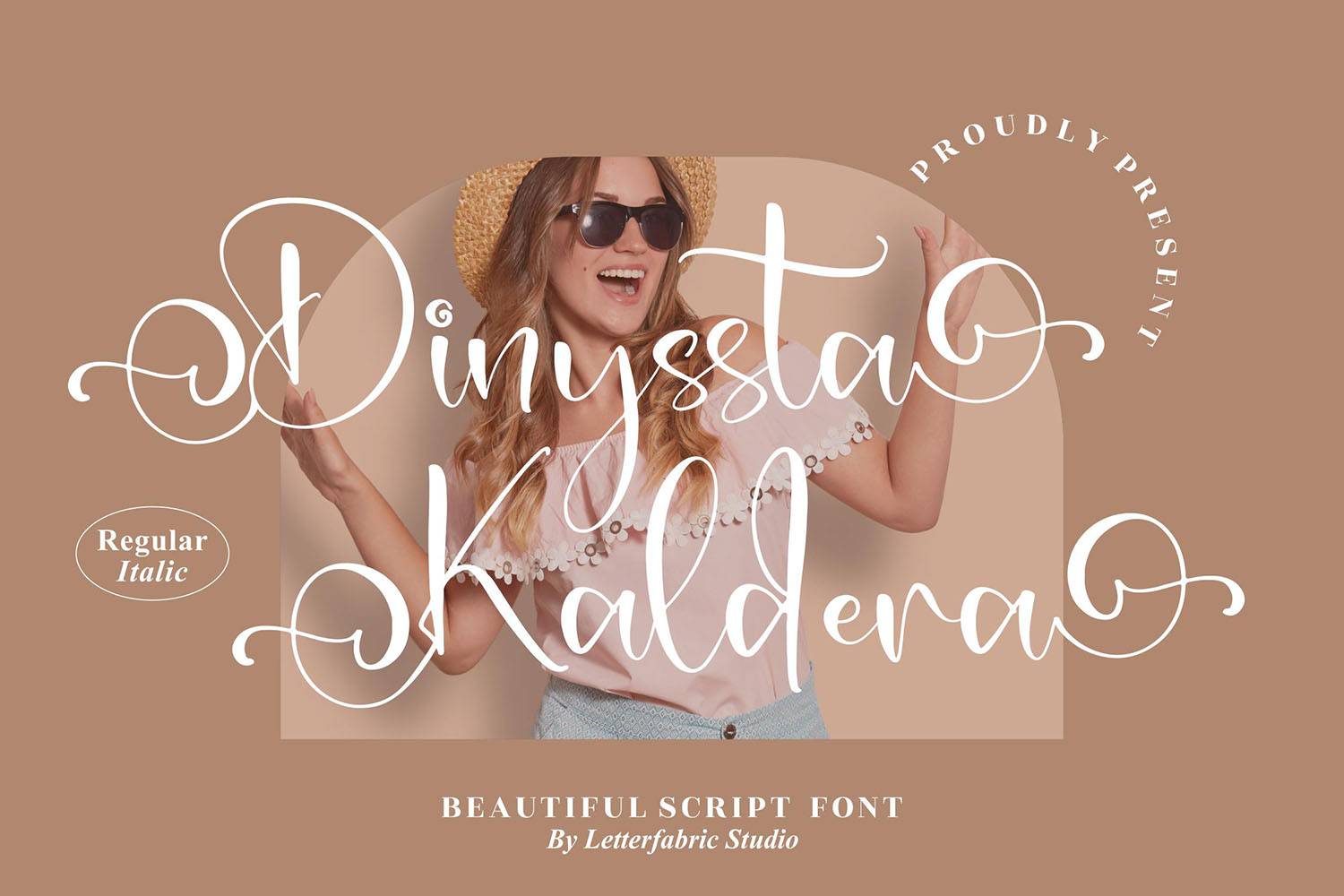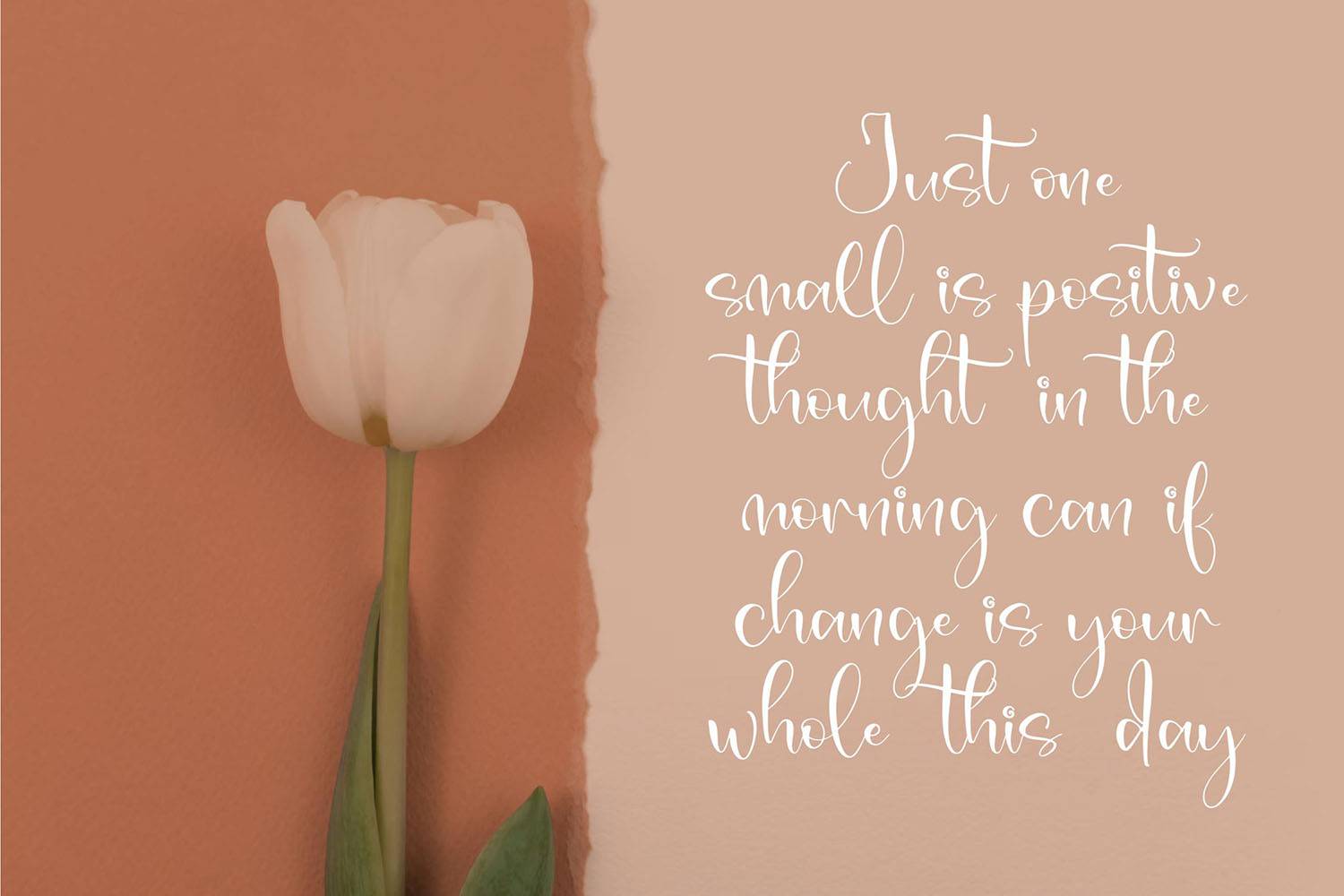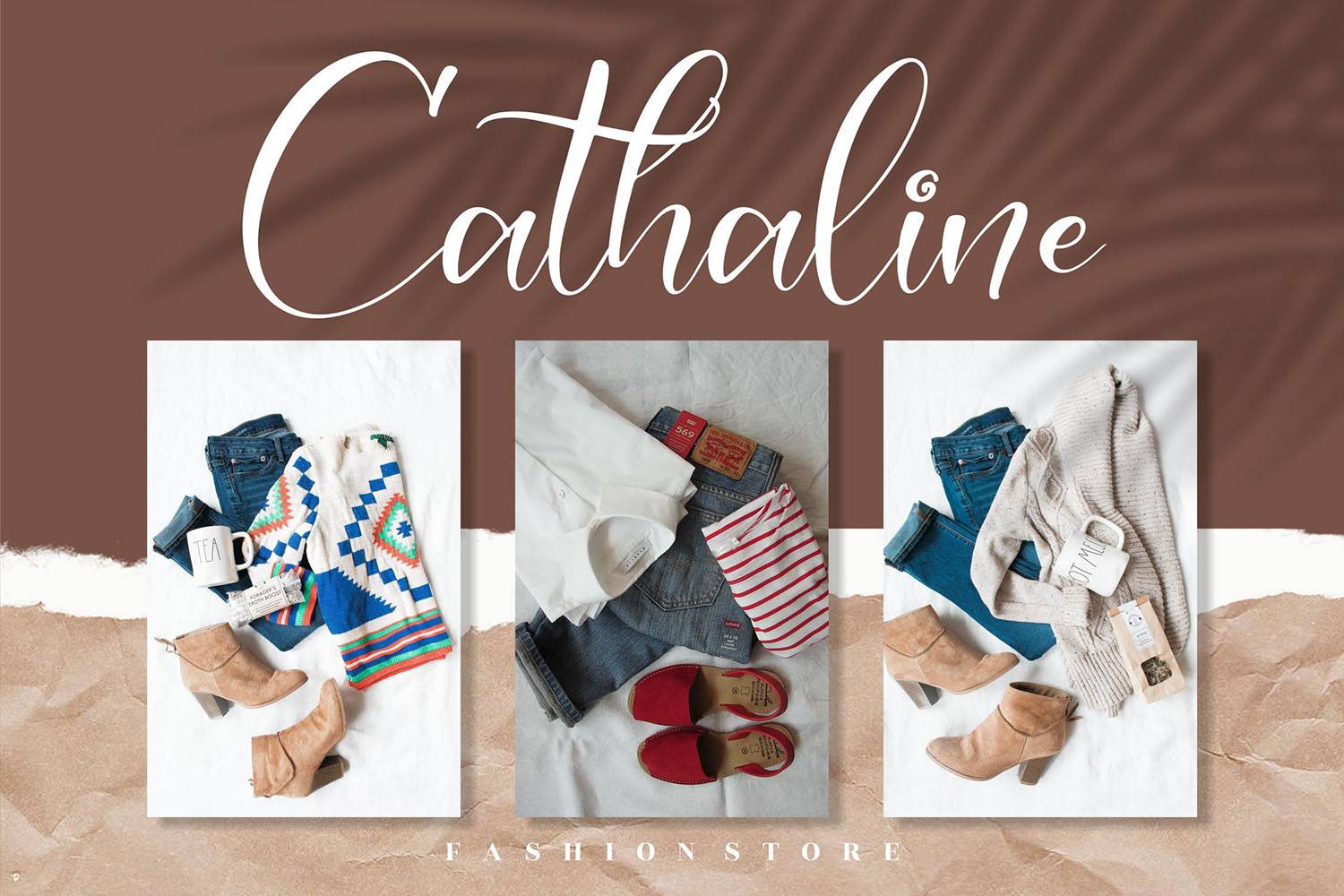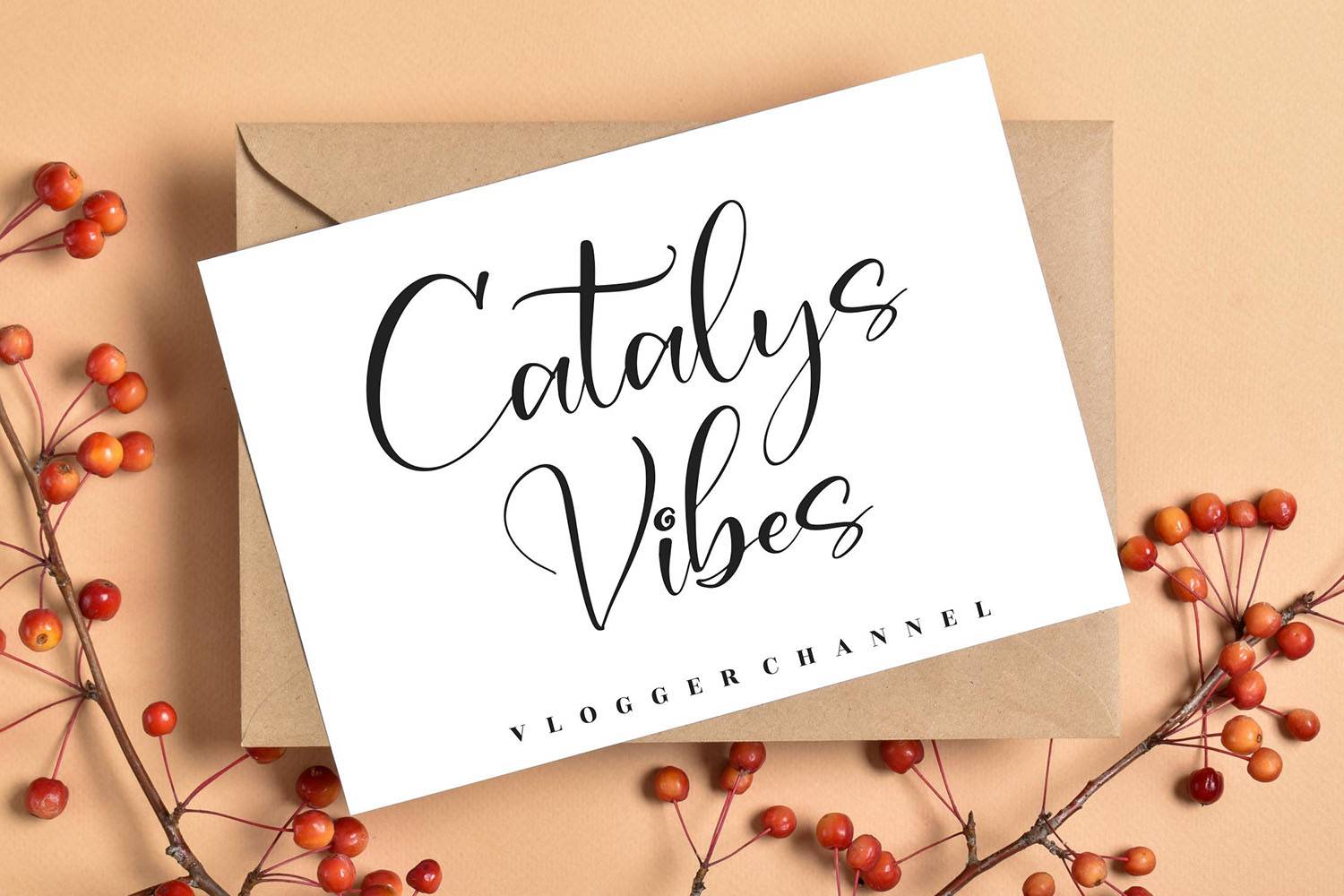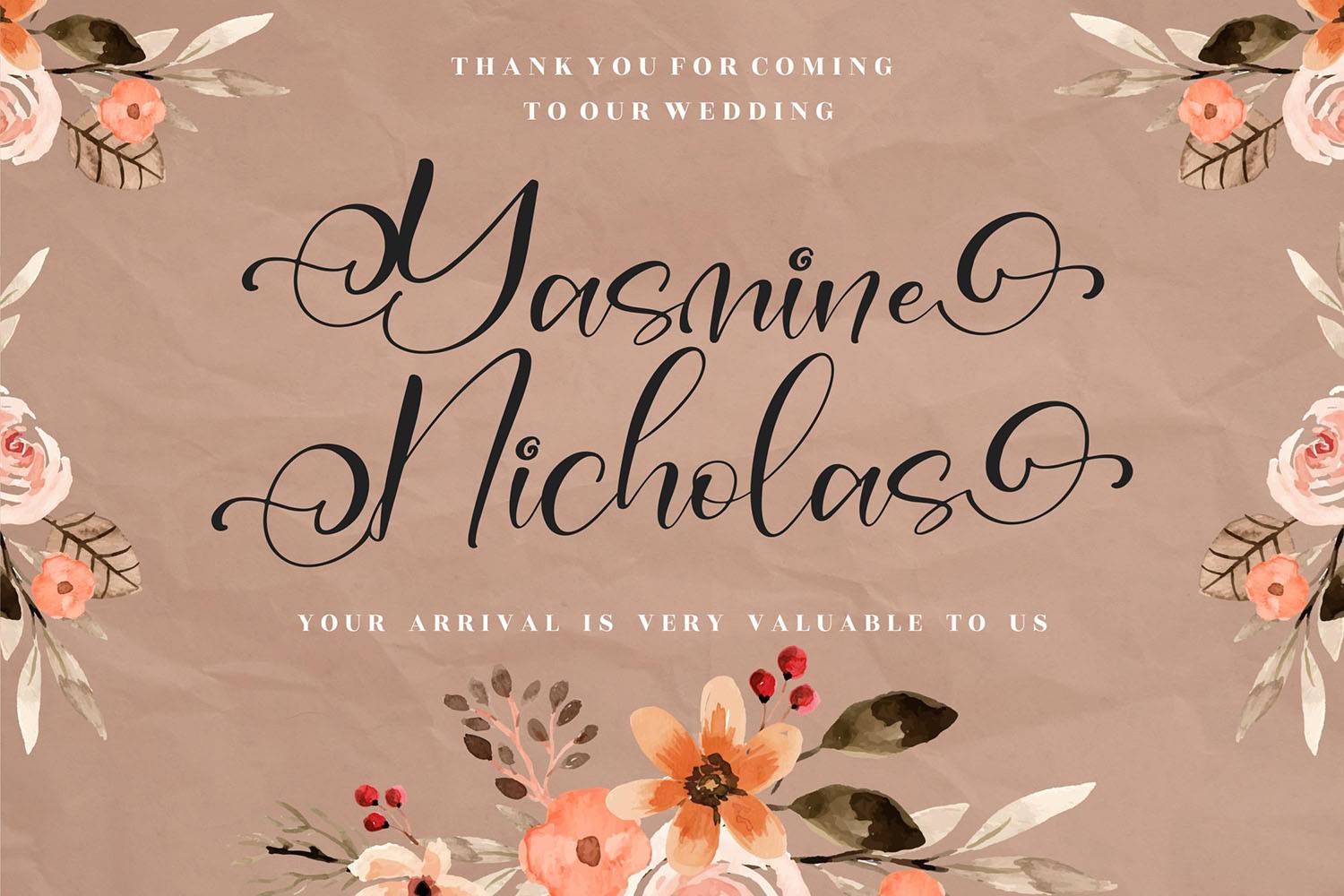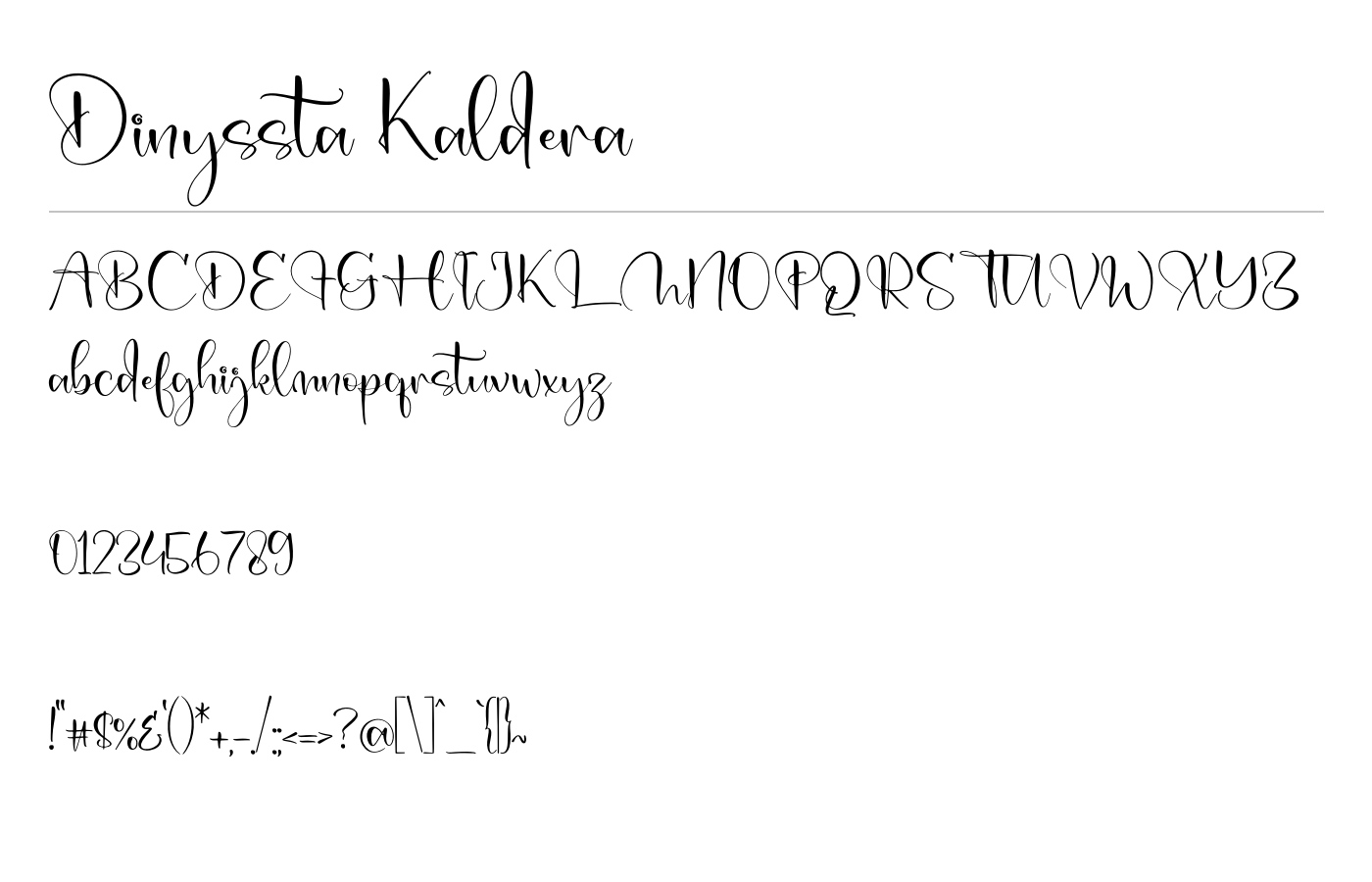
Dinyssta Kaldera is a delicate, handwritten script font with elegant, flowing strokes and fine, graceful lines that evoke a personal, artistic touch. Its tall, slender letterforms and playful flourishes make it perfect for creative branding, invitations, and feminine or whimsical design projects where a sophisticated yet approachable feel is desired. This font works beautifully in settings that want to communicate elegance with a handcrafted, unique personality.
Dinyssta Kaldera Font
About Dinyssta Kaldera Font